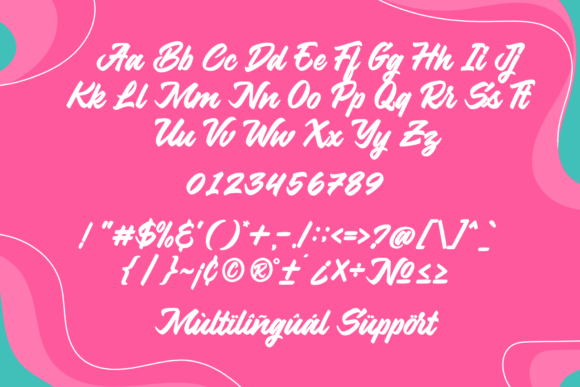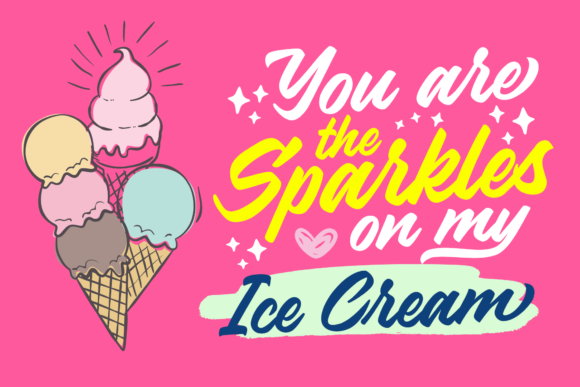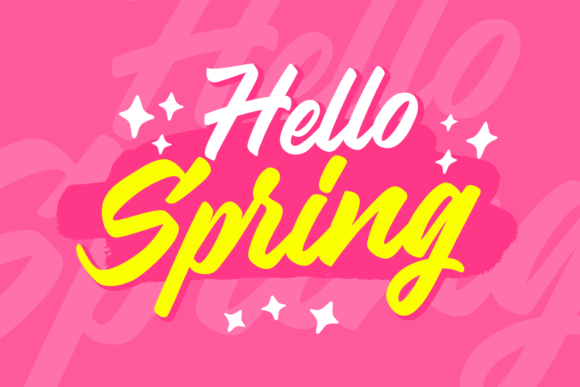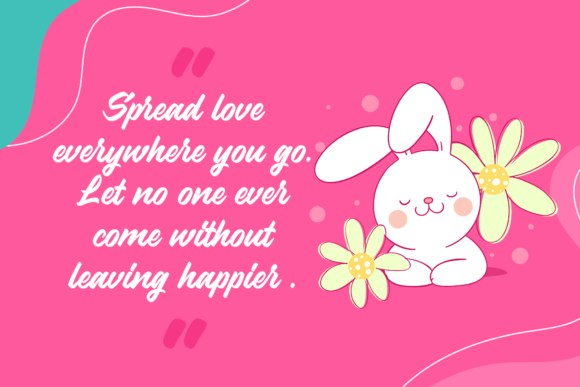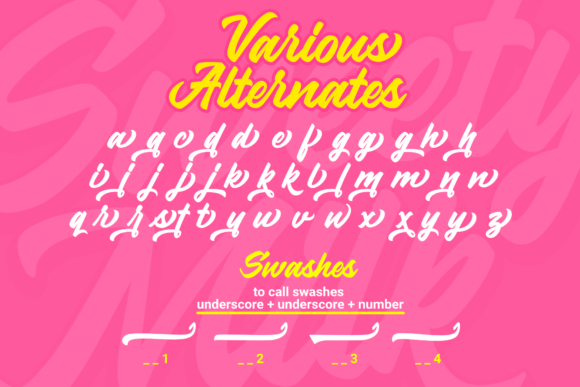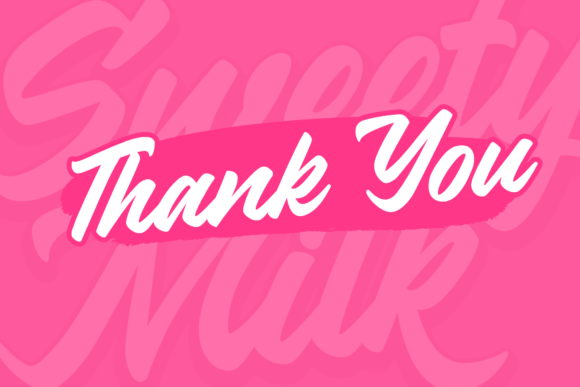
Sweety Milk Font
About Sweety Milk Font
Sweety Milk is in inspiring and flowing handwritten font. It has unique characters that will turn any design project into a true stand out. dd it to your most creative ideas and notice how it makes them come alive!